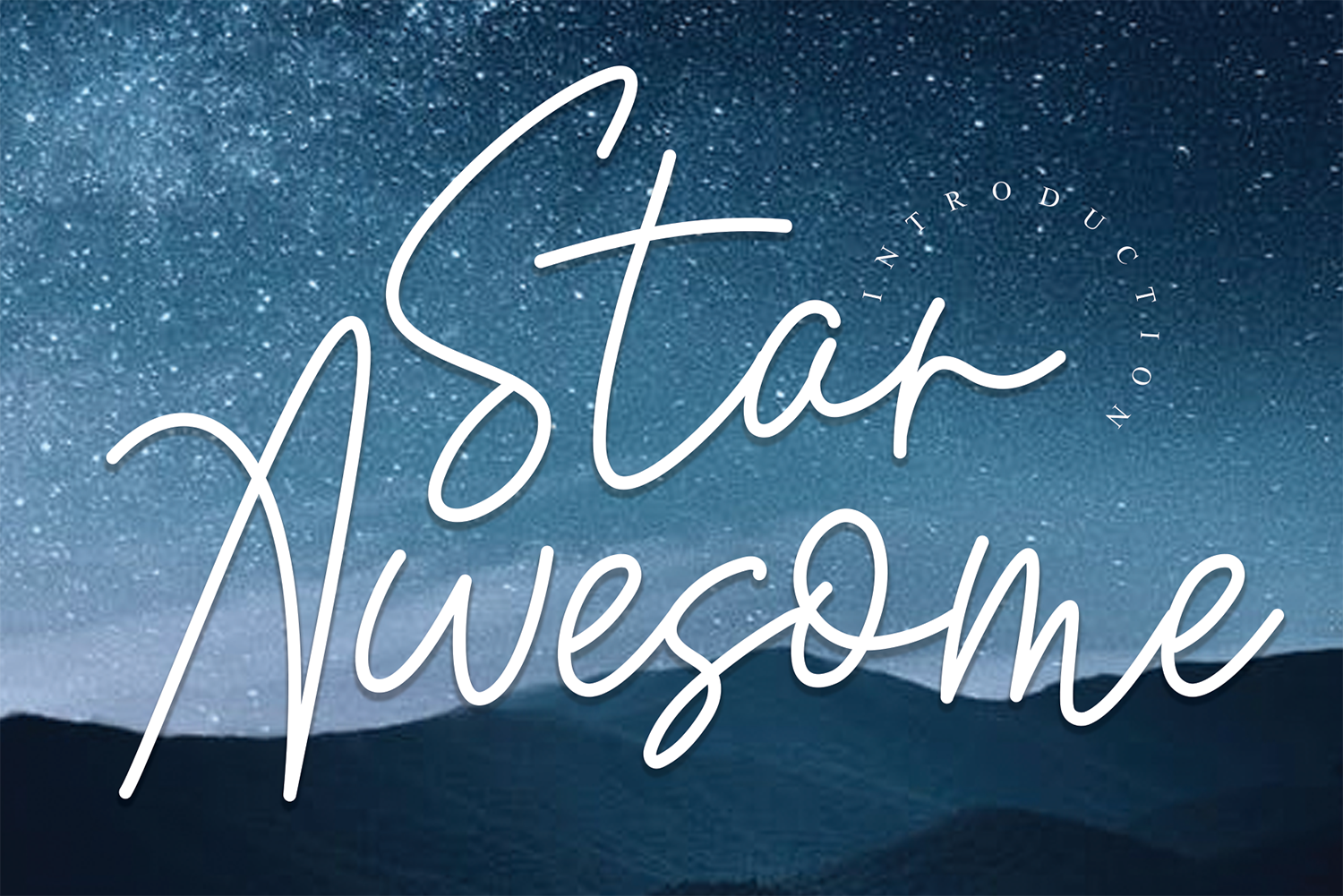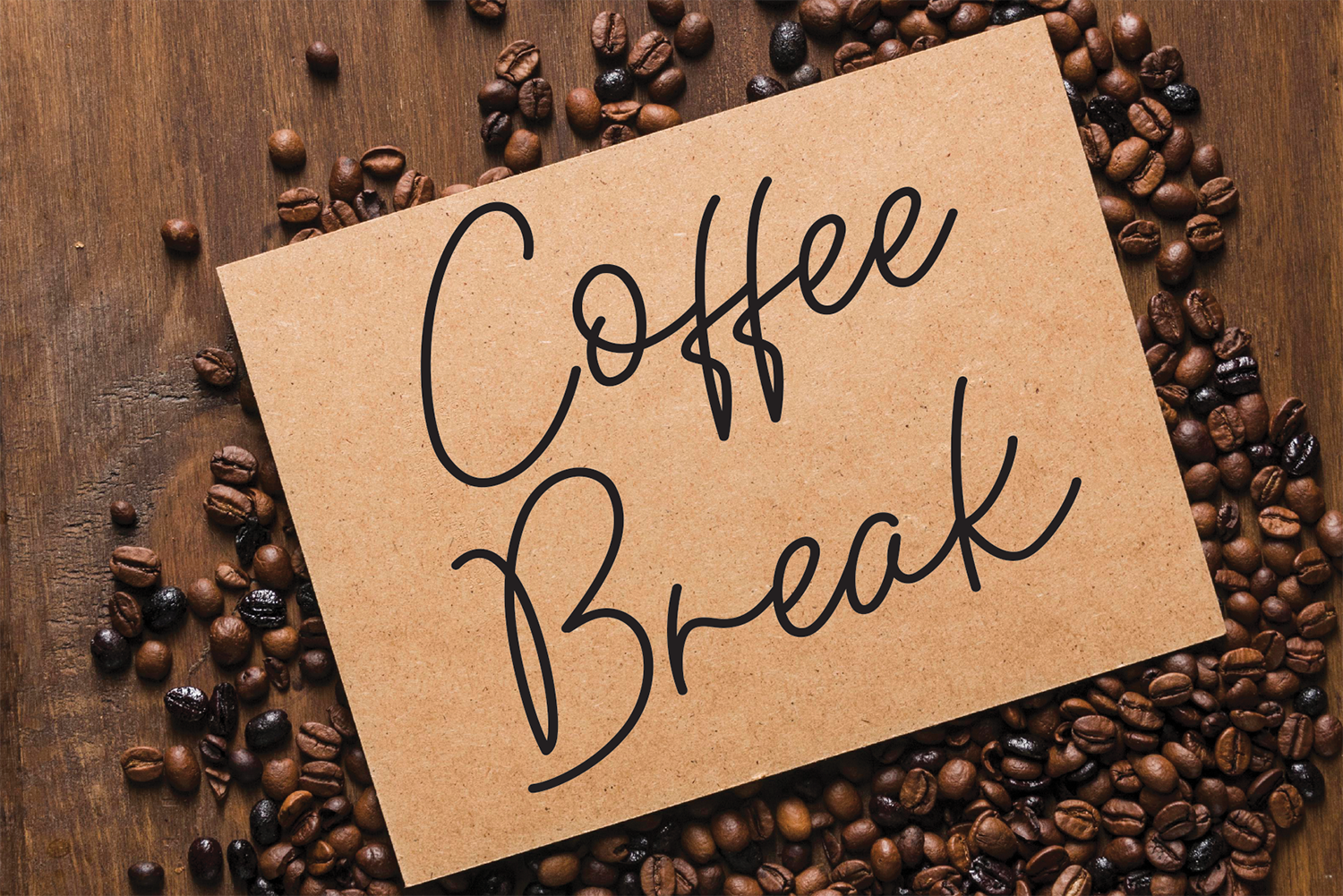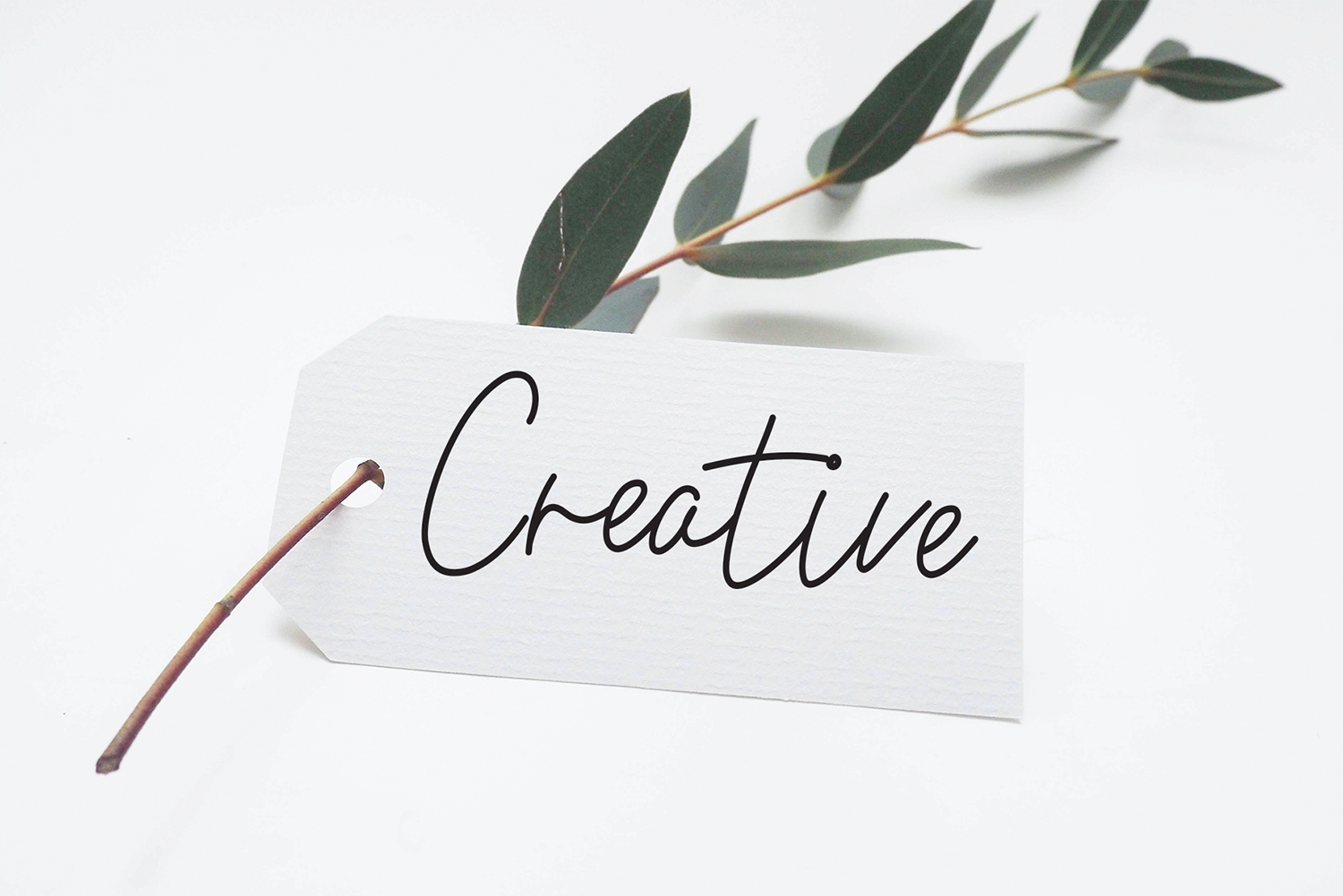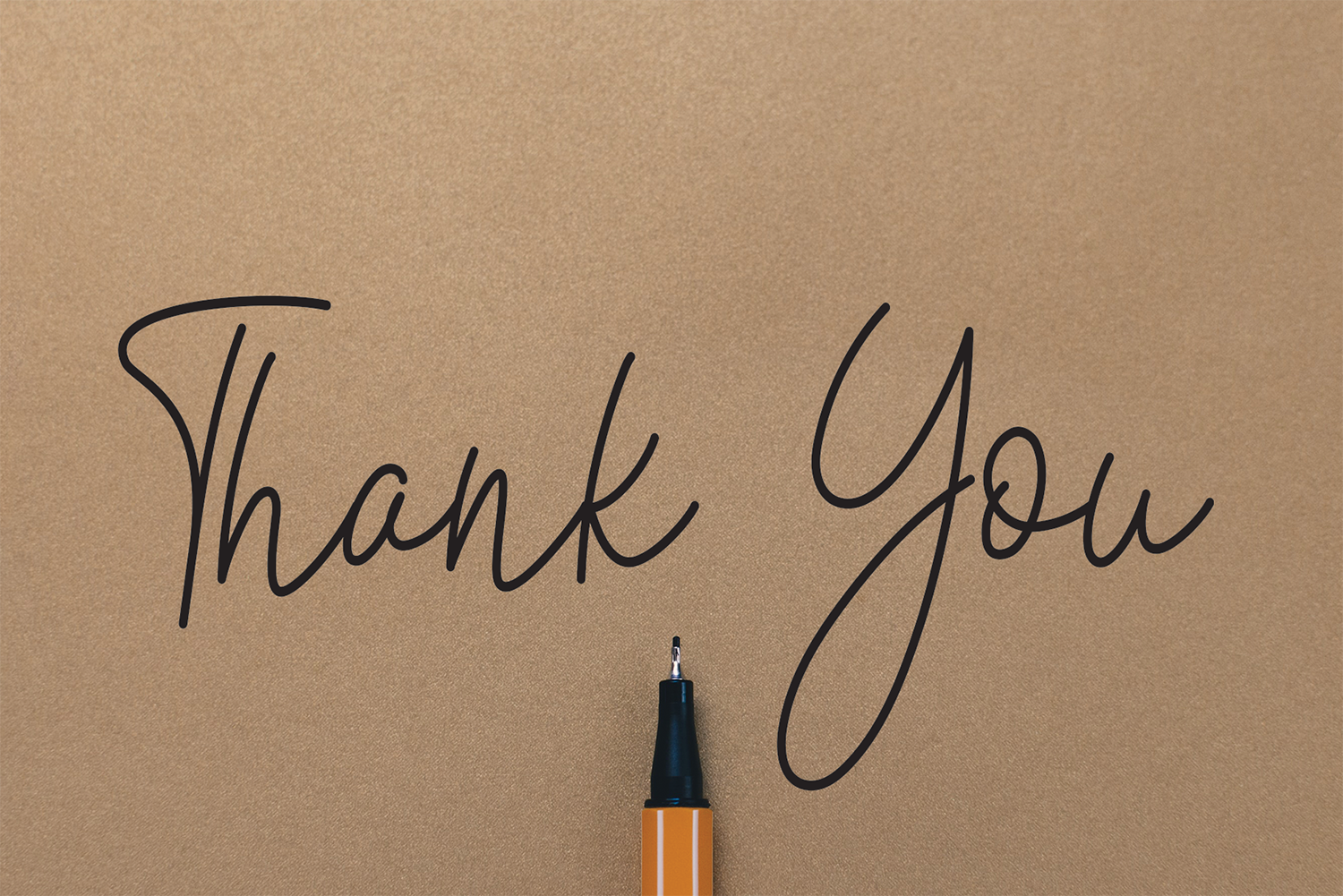
Star Awesome Free Font
Introducing Star Awesome Free Font: a graceful script font that exudes an air of elegance with a touch of modern freshness. Boasting a clean, sleek, and smooth aesthetic, it’s poised to make a significant impact on any design it graces. This font is your go-to choice for elevating the appeal of your projects, ensuring a remarkable visual impression. This free typeface was designed by a talented Scratchones Creative. If you like it don’t forget to check out the full version.